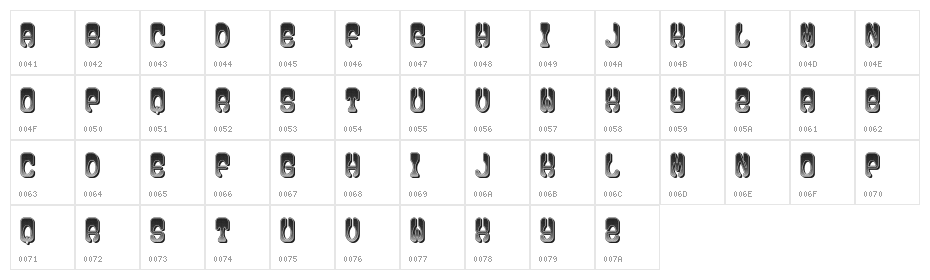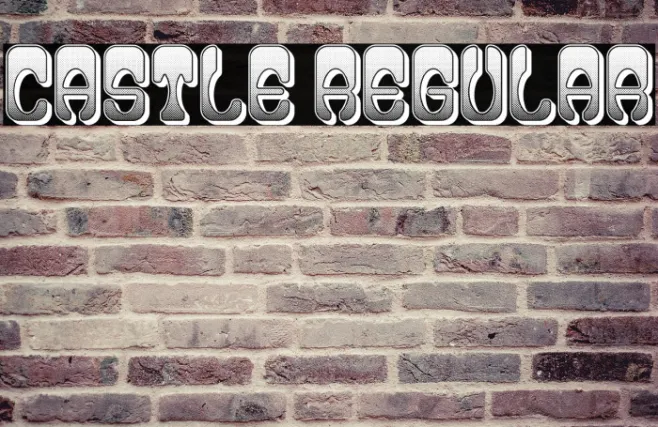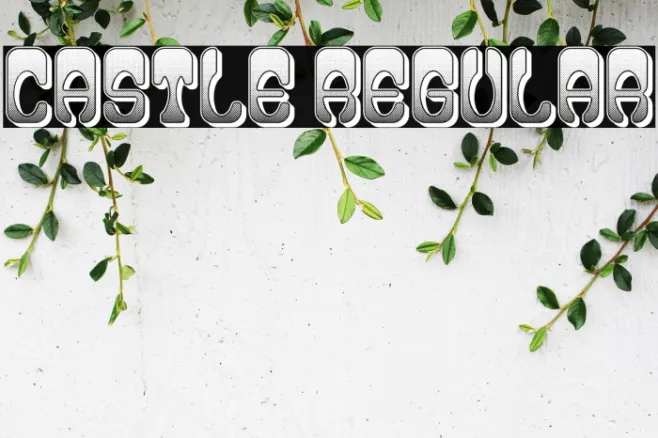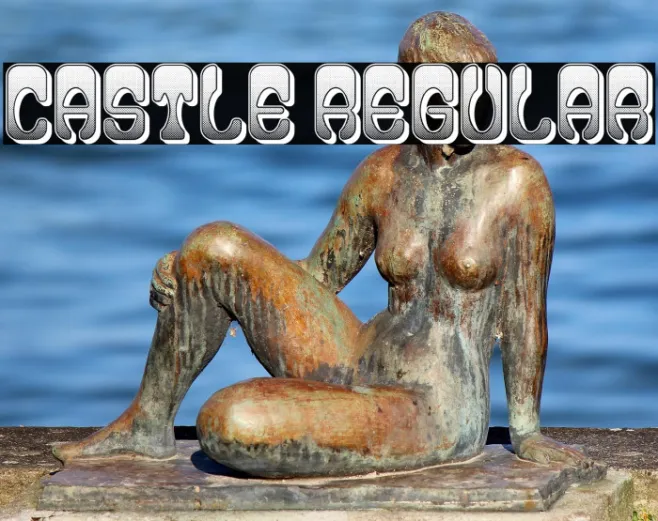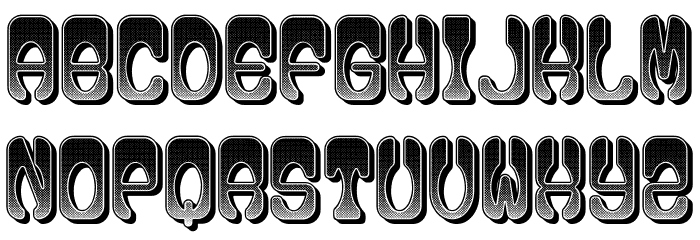
Castle Regular Font
Castle Regular Description
This font features a bold, decorative style with a unique 3D effect created by a combination of thick outlines and intricate internal patterns. The letters are uppercase, with a consistent height and width, giving a uniform appearance across the alphabet. The internal pattern resembles a mesh or grid, adding texture and depth to each character. The overall design is eye-catching and suitable for making a strong visual impact. The font's boldness and decorative elements make it ideal for headlines or titles where attention is key.